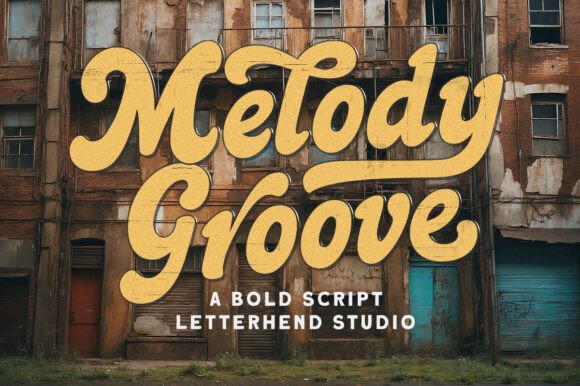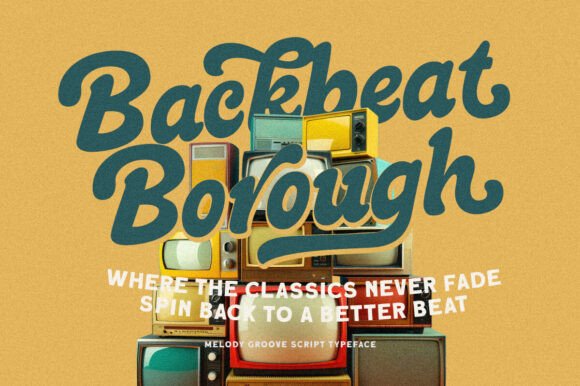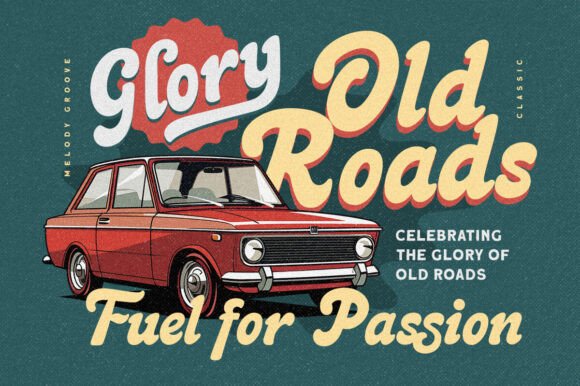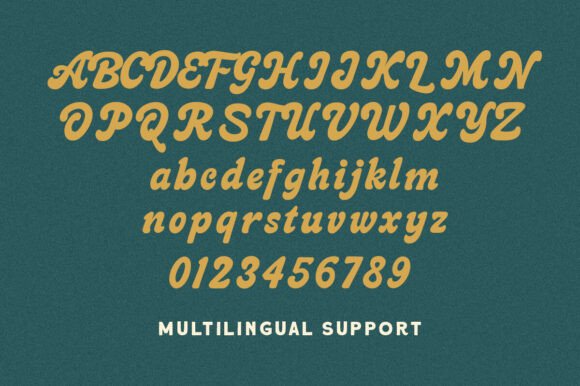
Melody Groove Font
About the Melody Groove Font
Unleash your creativity with Melody Groove Font, a versatile font perfect for a wide range of applications. Melody Groove is a bold script font that exudes a retro vibe with a modern twist. Featuring bold, flowing curves and a character-rich design, it evokes a warm yet energetic vintage feel, reminiscent of charming old-town memories. Perfect for design projects such as posters, branding, packaging, and invitations, Melody Groove brings a sense of nostalgia paired with a fresh, confident flair.
Melody Groove thrives in applications requiring a bold statement, such as headlines, logos, and short-form text on packaging or posters. Its retro-inspired curves work exceptionally well for branding projects aiming for a vintage-modern aesthetic, particularly those in the fashion, food, or entertainment industries. However, its bold strokes and script nature make it less suitable for body text or UI elements where high readability is paramount.
Pairing Melody Groove effectively requires considering its energetic yet nostalgic feel. A clean sans-serif like Montserrat or a geometric sans-serif such as Futura would provide a strong contrast and enhance readability when used for supporting text. For a more vintage-inspired design, consider pairing it with a complementary serif typeface such as Playfair Display.
The font’s core personality is bold, playful, and nostalgic, with a touch of retro-modern sophistication. It’s best suited for brands and projects that wish to convey a sense of fun, character, and confident vintage charm.
Melody Groove Font Usage Examples
Melody Groove Font Example